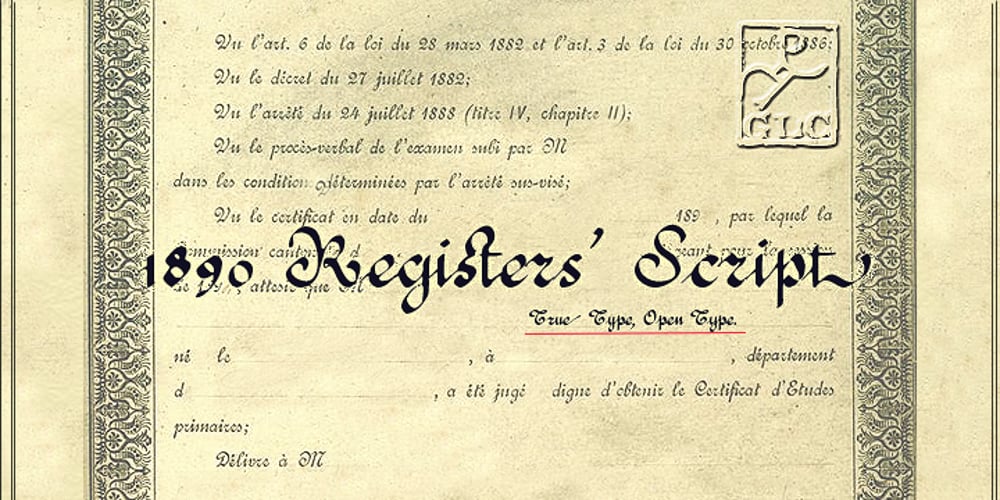
1890 Registers Script Font Family was designed by Gilles Le Corre and published by GLC. 1890 Registers Script contains 1 styles and family package options. This script font was inspired by the “Ronde” French script. It was in use from 1700s to 1900s (until 1960s in special circumstances) for registers, legal documents and texts, certificates, labels and other documents that must be particularly legible. Today in France, it is still being used for menus, advertising, and labels. The present version is a late 19th Century pattern. This font supports very strong enlargements as well as small sizes. When printed, it remains perfectly legible and elegant from 9/11 pts even if using an ordinary inkjet printer.